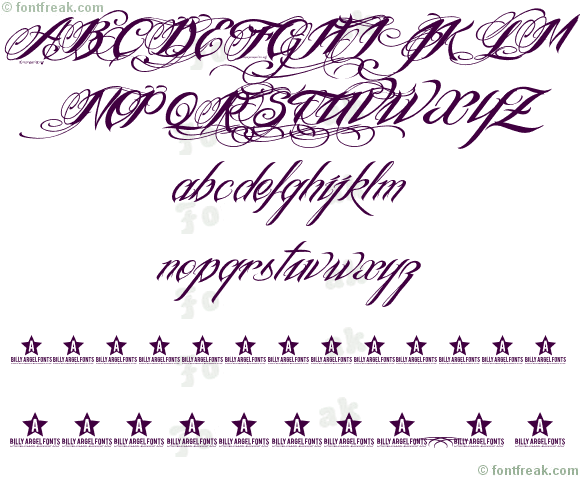
InkInTheMeat-Tial
InkInTheMeat-Tial is a captivating decorative font designed by Billy Argel Fonts, characterized by its unique blend of elegance and whimsy. This font is classified as a display typeface, making it perfect for eye-catching projects that require a touch of artistry. It features a combination of flowing curves and sharp angles, giving it a dynamic visual appeal. The stroke weight varies throughout the characters, providing a sense of rhythm and movement, while the intricate ligatures and extra glyphs enhance its decorative quality. The spacing is thoughtfully designed to maintain readability while allowing the artistic elements to shine.
This font is an excellent choice for a variety of creative applications. It works beautifully for wedding invitations, bringing a romantic and sophisticated flair. Its dramatic style makes it suitable for movie posters, where it can capture attention and convey the essence of the film. Additionally, InkInTheMeat-Tial is ideal for restaurant menus, especially those aiming for a unique or thematic dining experience. Small business branding can benefit from this font by using it in logos or promotional materials to stand out in a crowded market.
What sets InkInTheMeat-Tial apart is its distinctive character; it effortlessly combines artistry with functionality. Its ability to evoke emotion while remaining practical for various uses makes it a standout choice in any designer's toolkit. Whether for personal projects or commercial designs, this font adds a unique touch that captures attention and leaves a lasting impression.